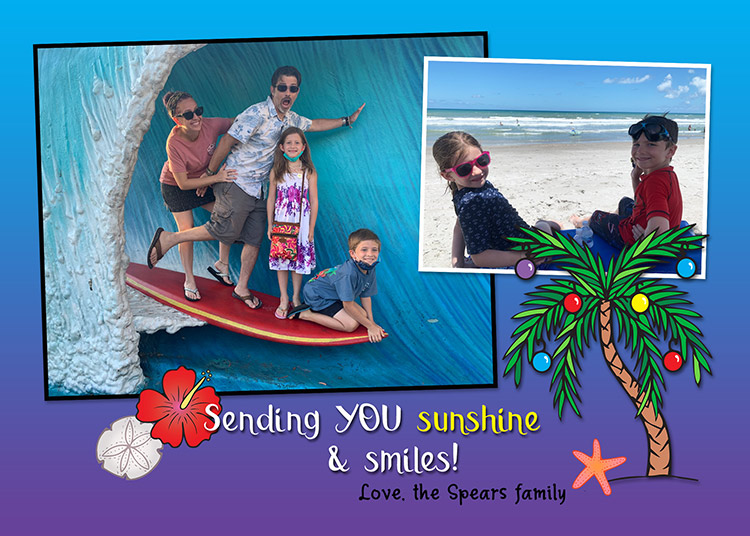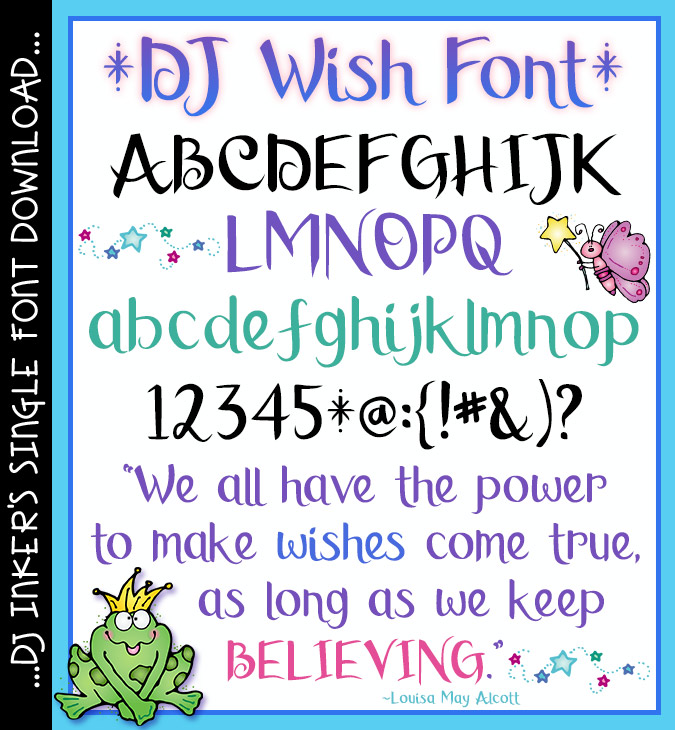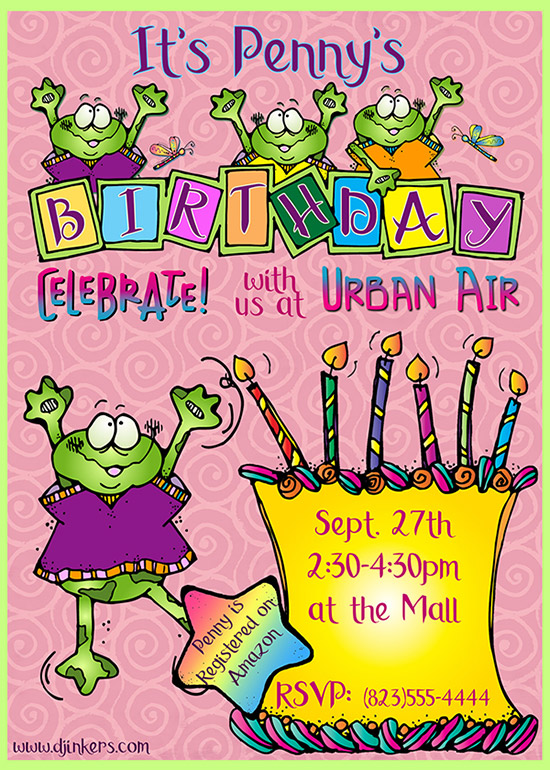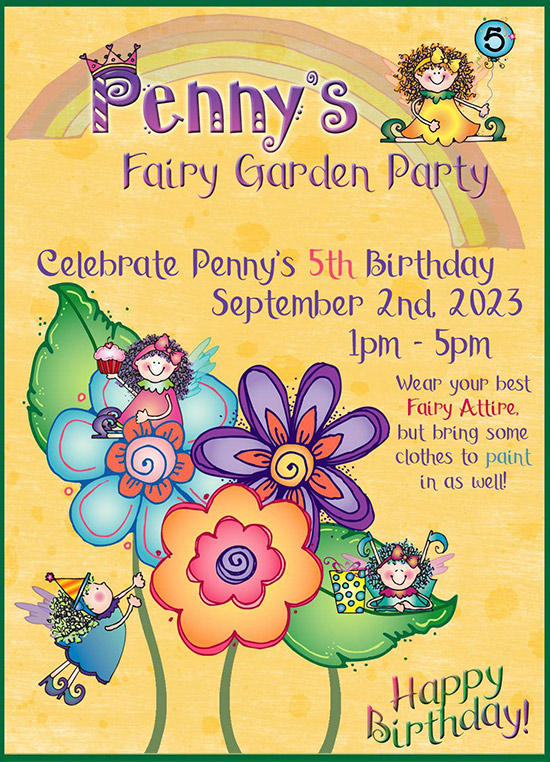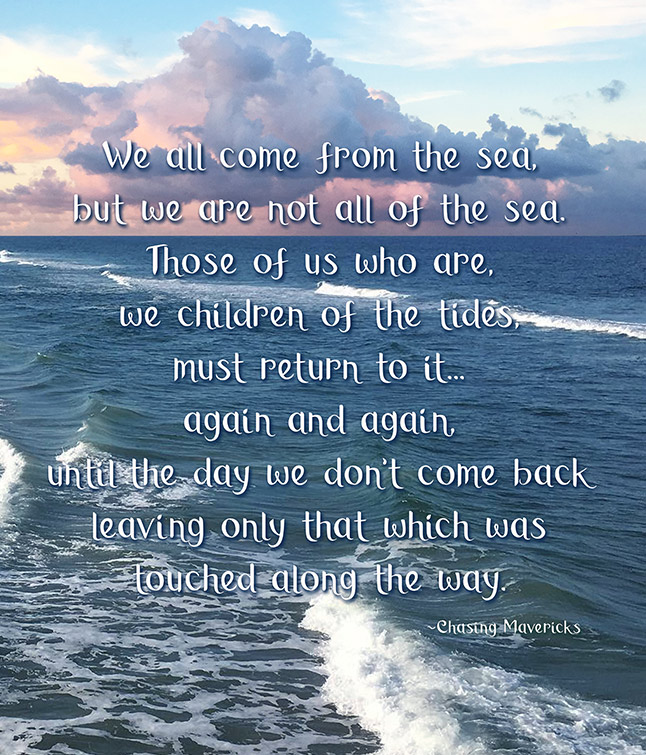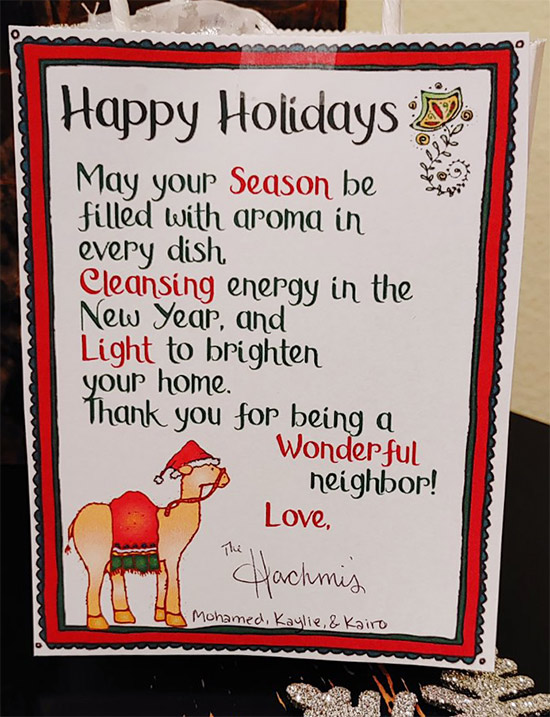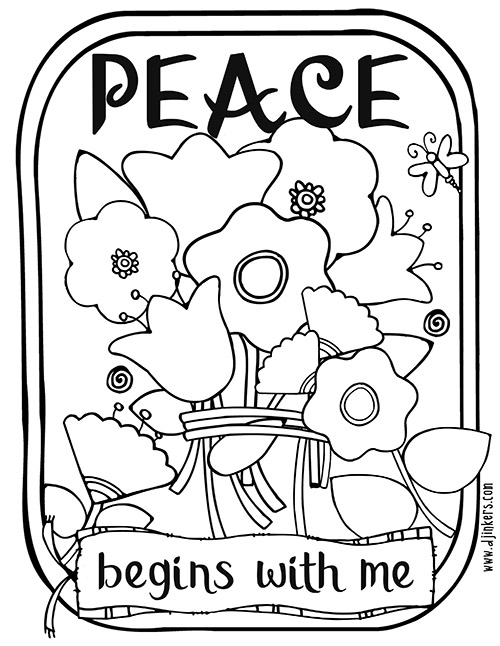
Dreaming of a charming calligraphy font for your collection? Wish granted! This lovely lettering will be perfect for special events, elegant cards & letters, weddings, tea parties and more. Strong enough for headlines, yet soft & simple enough for full text.